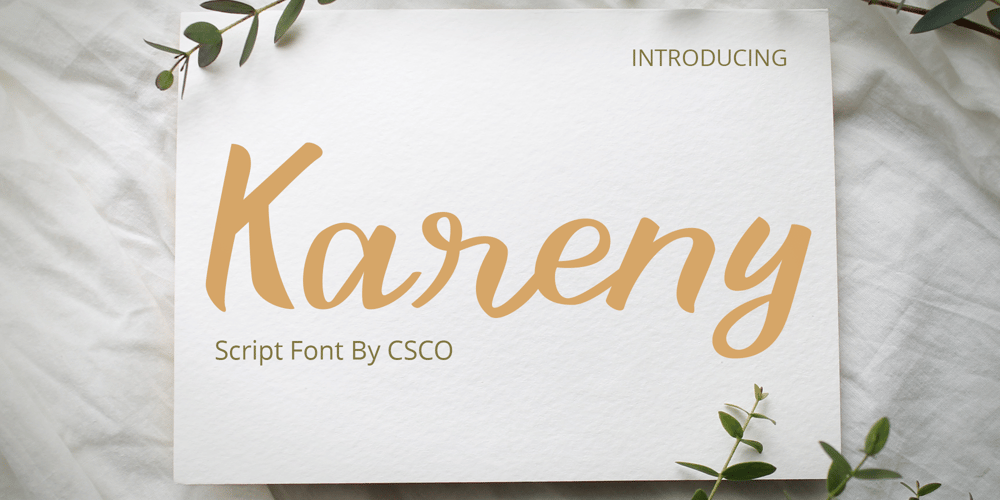
Kareny Font Family was designed by Trio Nazzar Saputra, Wahyu Hadi Yuana and published by Craft Supply Co. Kareny contains 1 styles and family package options. Introducing Kareny – Brush Script FontA Vibrant BeginningFirstly, let’s dive into the world of Kareny – a delightful brush script font. Bursting with charm, Kareny initiates a journey where each letter dances with playful creativity. Right from the start, its enchanting style captivates the eye, setting a tone of warmth and friendliness.Effortlessly VersatileMoving forward, Kareny’s versatility becomes unmistakably evident. Seamlessly transitioning from one application to another, it proves to be the ideal companion for a multitude of display needs. Consequently, it crafts a space where readability coexists with a distinctive visual appeal.